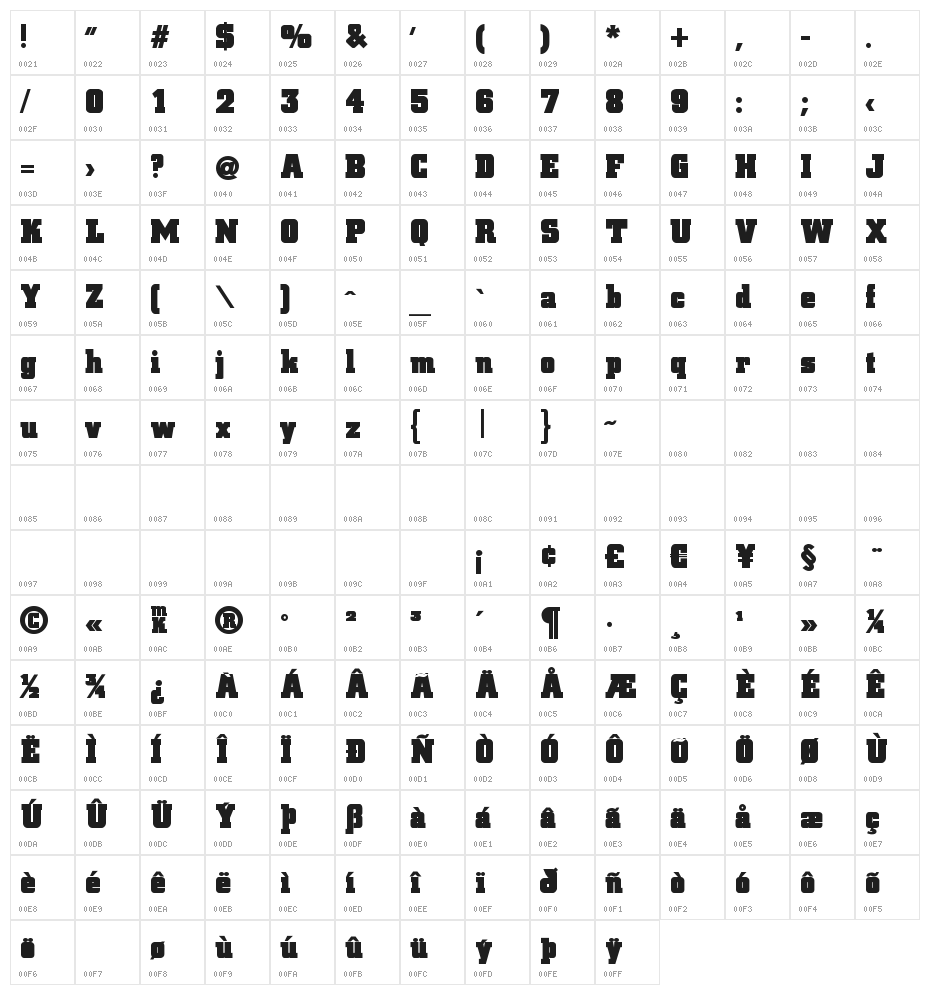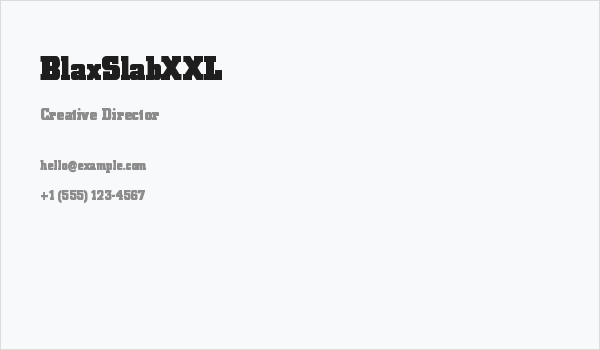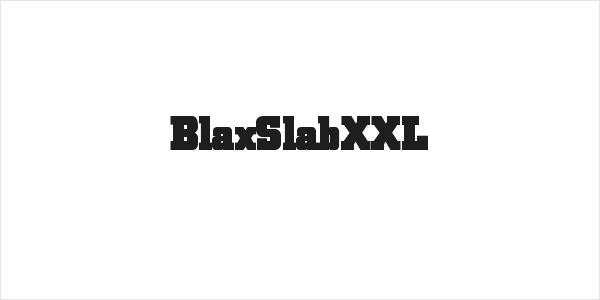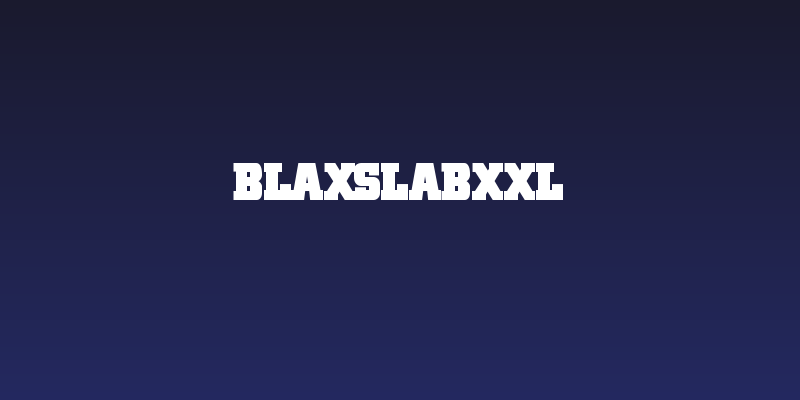
BlaxSlabXXL Font
BlaxSlabXXL Description
This font features a bold and commanding presence with its thick, slab serif style. The characters are robust and impactful, making it ideal for attention-grabbing headlines and titles. The uppercase and lowercase letters maintain a consistent weight, providing a uniform appearance across all characters. The numerals are equally bold, ensuring they stand out in any context. Special characters are designed with the same heavy strokes, maintaining the overall aesthetic. The font's strong geometric shapes and solid structure give it a modern yet timeless feel.
| Proposed Projects | Ideal for posters, headlines, branding, and any project requiring a bold statement. |